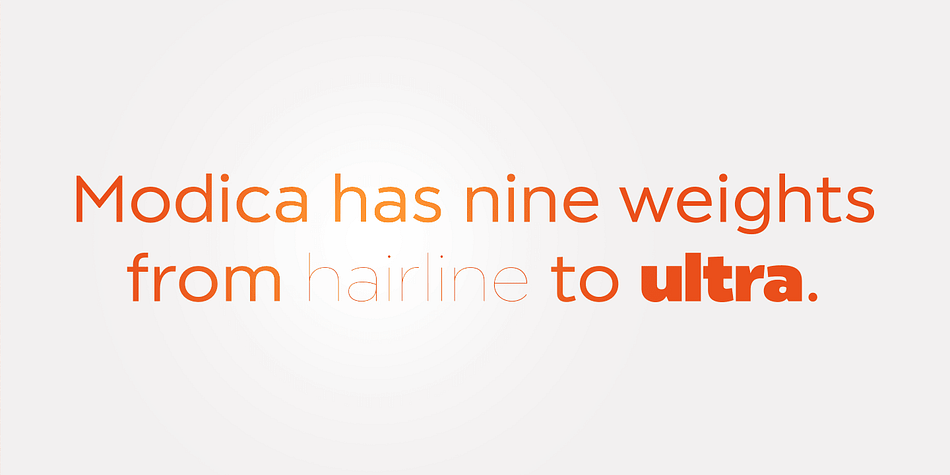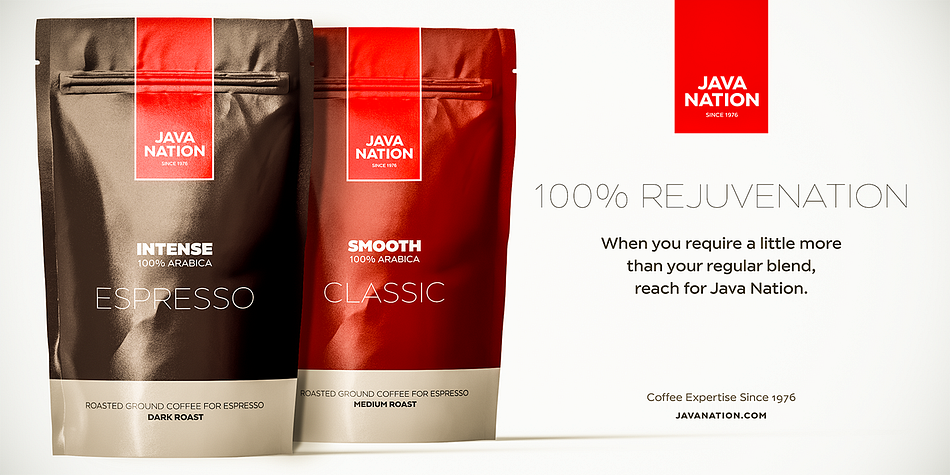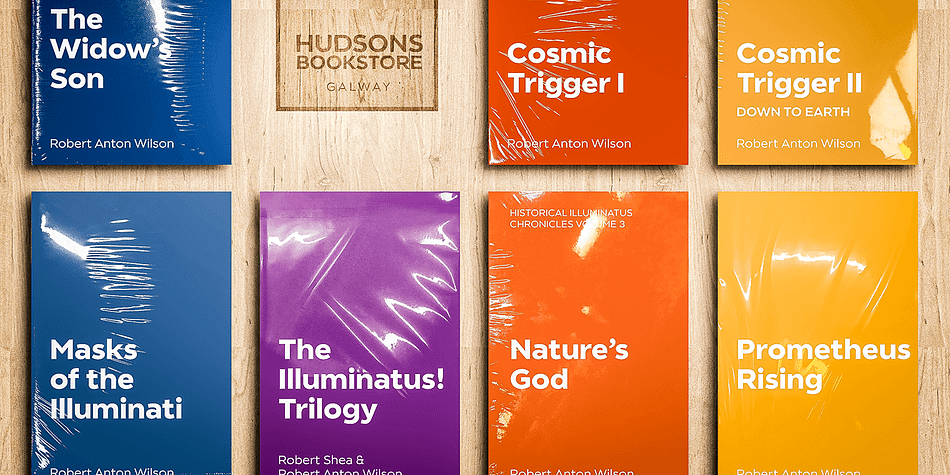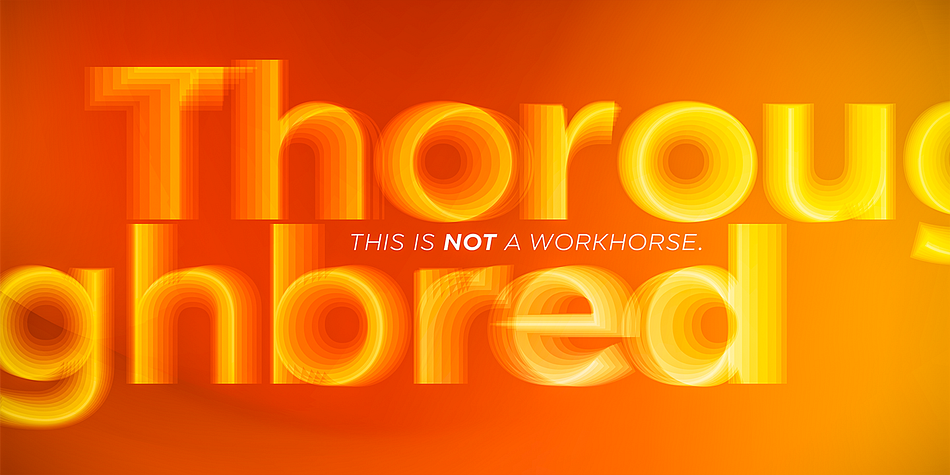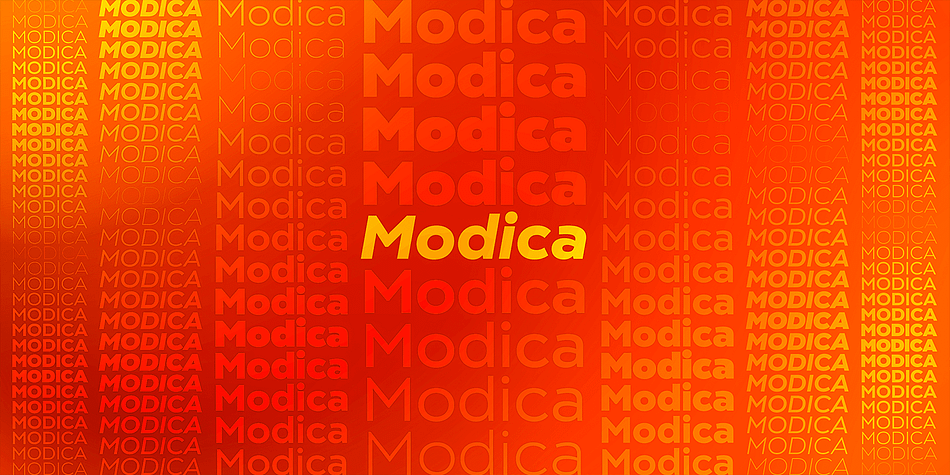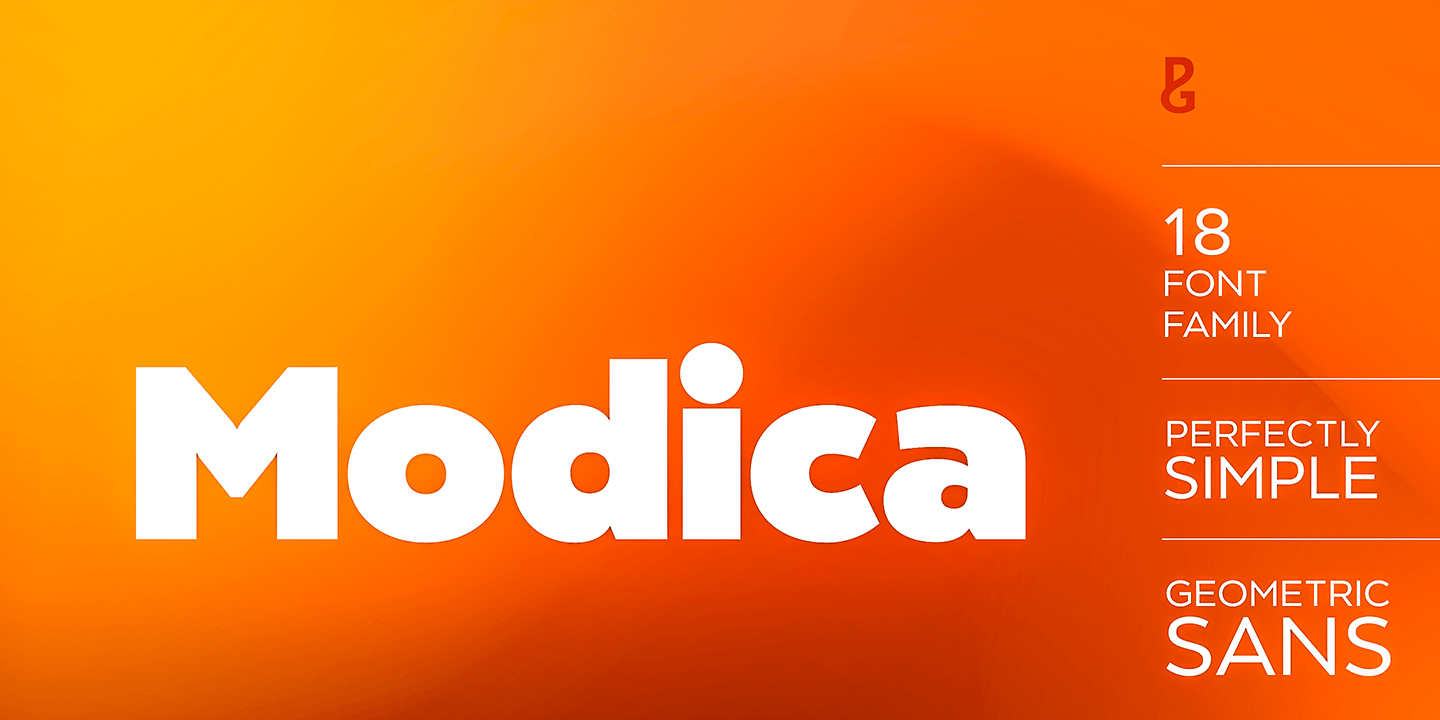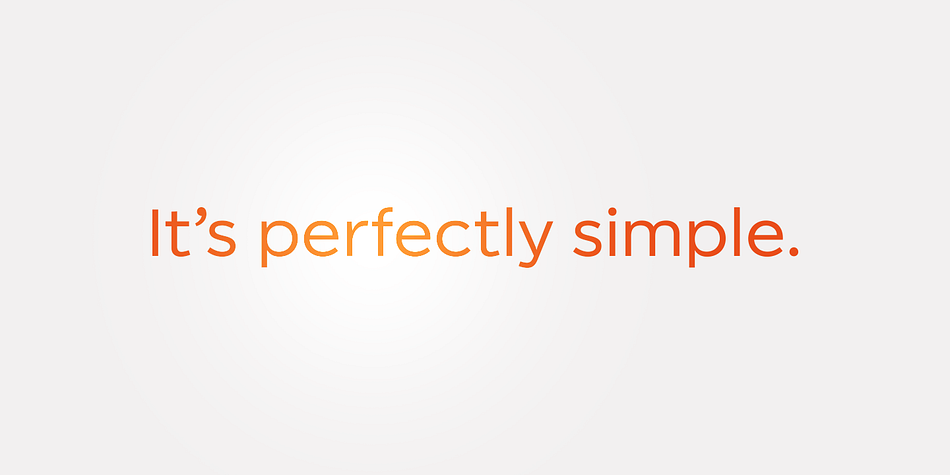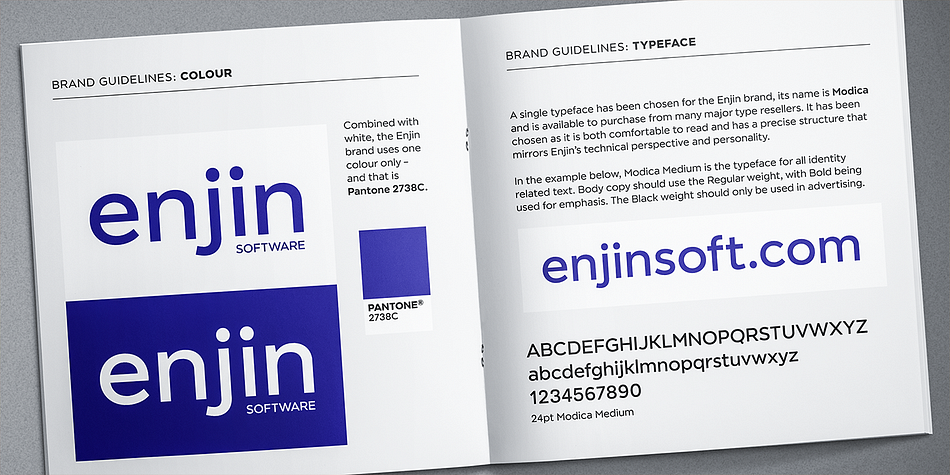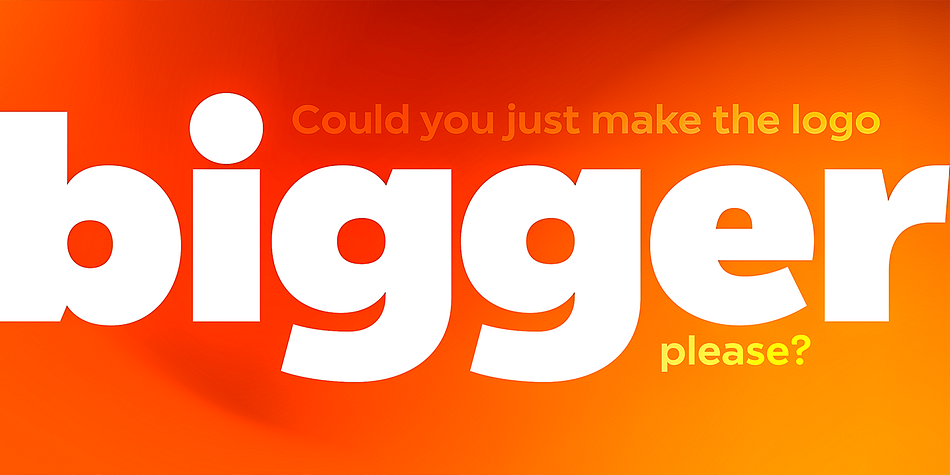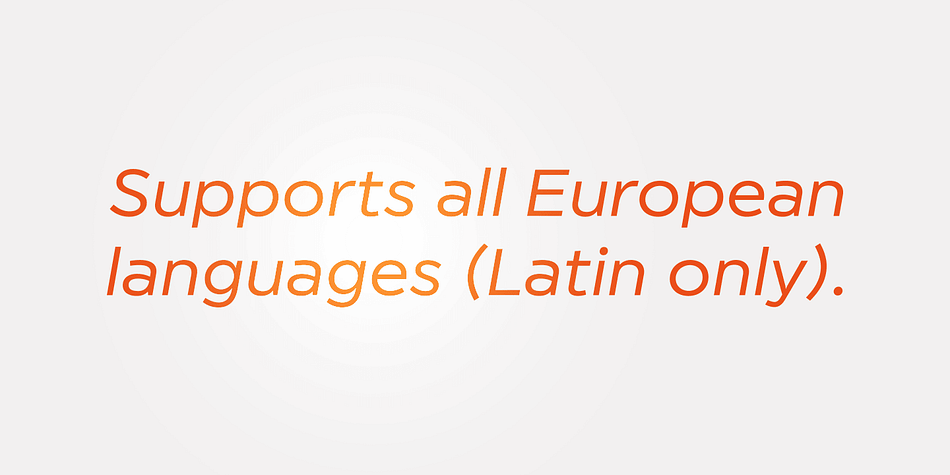
Designed by Paulo Goode, Modica is a sans serif font family. This typeface has eighteen styles and was published by Paulo Goode.
Modica is a strong and agile Geometric Sans type family comprising 18 fonts. This typeface began life as “Meccanica” – a quirky, heavy, engineering typeface, that later evolved into the more conservative “Technica” type family. And now, the typeface has been distilled down to its simplest and most perfect form to become “Modica”.
Modica is a nimble typeface that can handle a multitude of applications – everything from body copy to retail fashion to corporate identities… why not put Modica to task today?